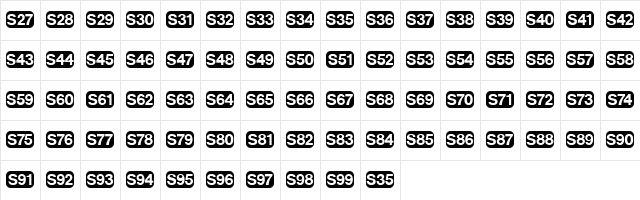
DeutscheBahnAG Regular
Design Context for DeutscheBahnAG Typeface
DeutscheBahnAG offers clean, dependable letterforms without strong stylistic allegiance, making it a practical choice for designers who need flexibility.